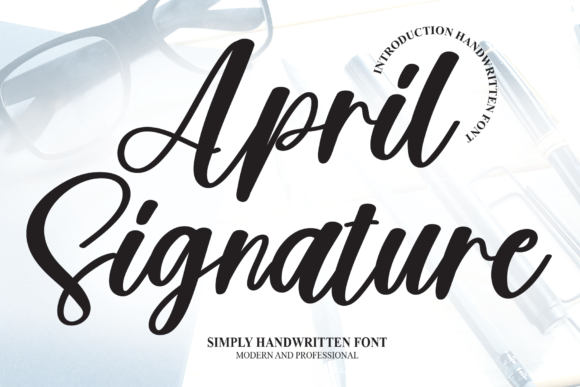
As a designer, have you ever found yourself staring at a blank page, searching for the perfect font to bring your creative vision to life? The moment of inspiration is always a thrill – and for many of us, it’s the moment when a beautiful font can make all the difference. Whether you’re working on a wedding invitation, a baby announcement, or a social media post, the right font can elevate your design and speak directly to your audience.
That’s where the April Signature Font comes in – a sweet and cursive handwritten font that adds a joyful and romantic touch to each of your projects. This lovely font is perfect for designers who want to create unique and eye-catching designs that stand out from the crowd.
With the April Signature Font, you’ll be able to add a personal touch to your designs and connect with your audience on a deeper level. Its versatility and charm make it a valuable asset for any designer looking to take their work to the next level.
April Signature Font Key Features
- Unique Characteristics: Distinctive, elegant, and cursive script with a touch of modernity, ideal for signatures, logos, and branding
April Signature Font Review
I’ve had the chance to work with April Signature Font and here’s my honest take.
- Unique Style: The font has a distinctive, elegant feel that’s perfect for creating high-end designs.
- Great for Logos: The bold lines and refined curves make it ideal for creating striking logos.
- Well-Distributed Weight: The font’s weights are well-distributed, making it easy to create visually appealing typography.
- Supports a Range of Languages: April Signature Font supports a wide range of languages, making it a great choice for international designs.
- Limited Expressive Power: The font’s design, while elegant, can feel a bit one-dimensional in certain contexts.
- Not Ideal for Body Text: The font’s size and style make it better suited for headlines and titles rather than body text.
April Signature Font is a great choice for designers looking to create high-end, visually striking designs. While it may not be suitable for every project, it’s a solid addition to any designer’s toolkit. With a little creativity and planning, this font can help elevate your designs to the next level.
Alternatives to April Signature Font
Great Vibes is a modern, elegant script font perfect for creative and artistic projects. It’s ideal for use in invitations, wedding designs, and other occasions where a touch of sophistication is needed. Compared to April Signature Font, Great Vibes has a more refined and polished look, making it a great choice for high-end designs.
Pacifico is a beautiful, elegant script font with a relaxed and casual feel. It’s perfect for use in beach-themed designs, travel brochures, and other projects where a laid-back vibe is desired. Compared to April Signature Font, Pacifico has a more rustic and organic look, making it a great choice for projects that require a natural and effortless feel.
Carolyna Pro is a modern, elegant script font with a touch of sophistication and glamour. It’s ideal for use in high-end designs, luxury brands, and other projects where a premium feel is required. Compared to April Signature Font, Carolyna Pro has a more refined and polished look, making it a great choice for projects that require a high level of elegance and sophistication.